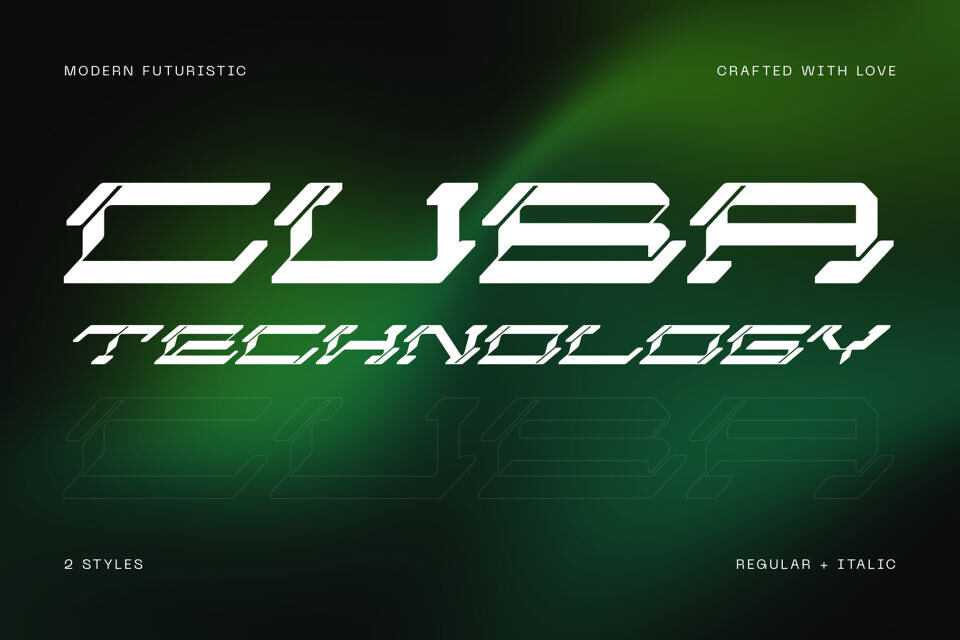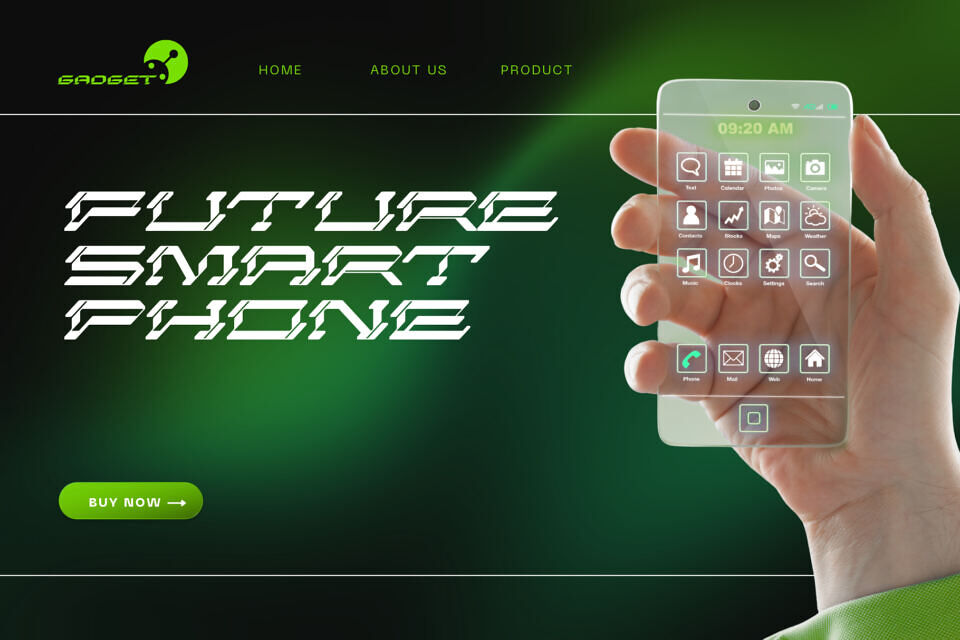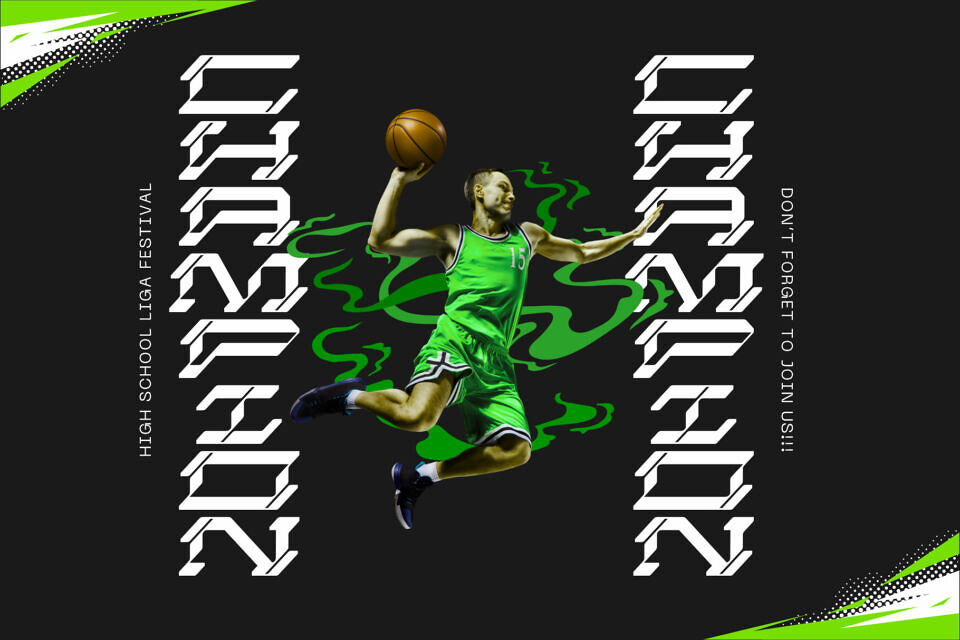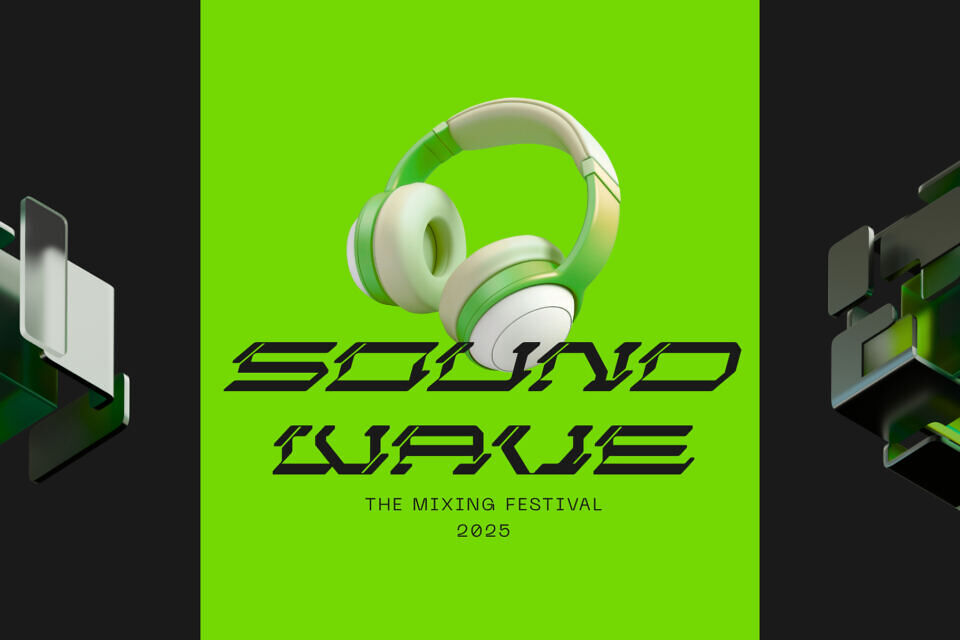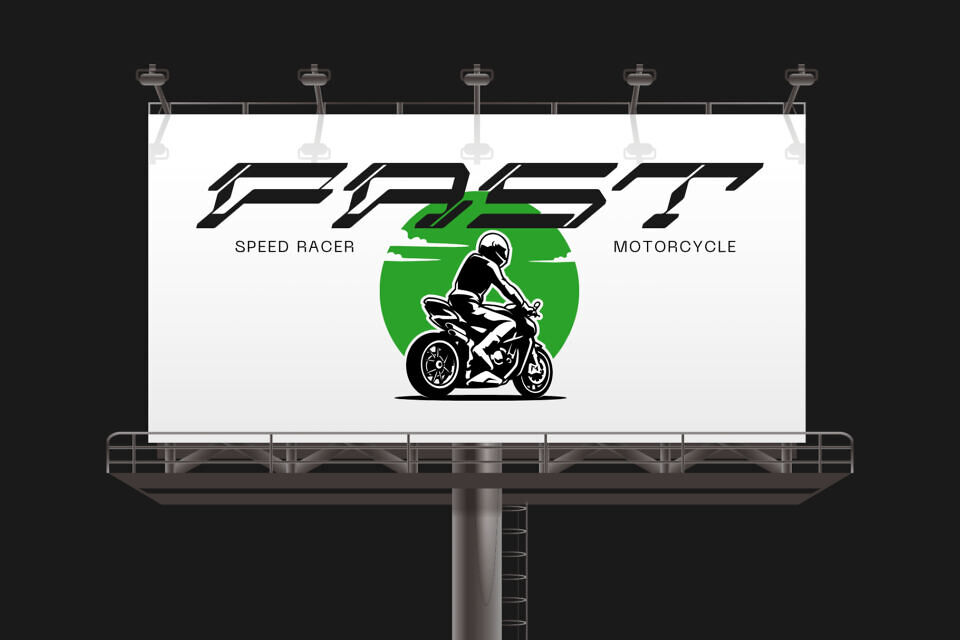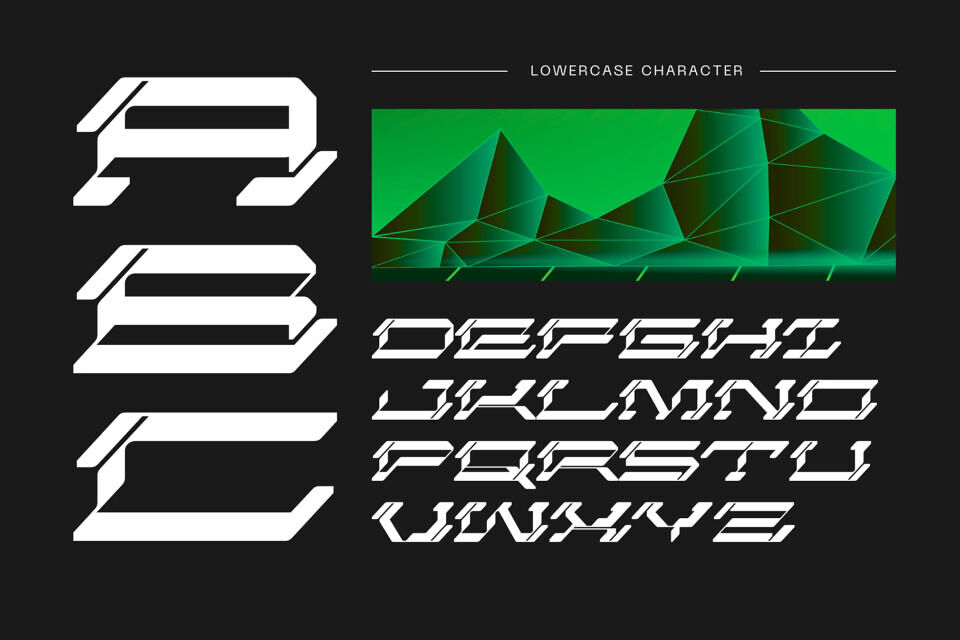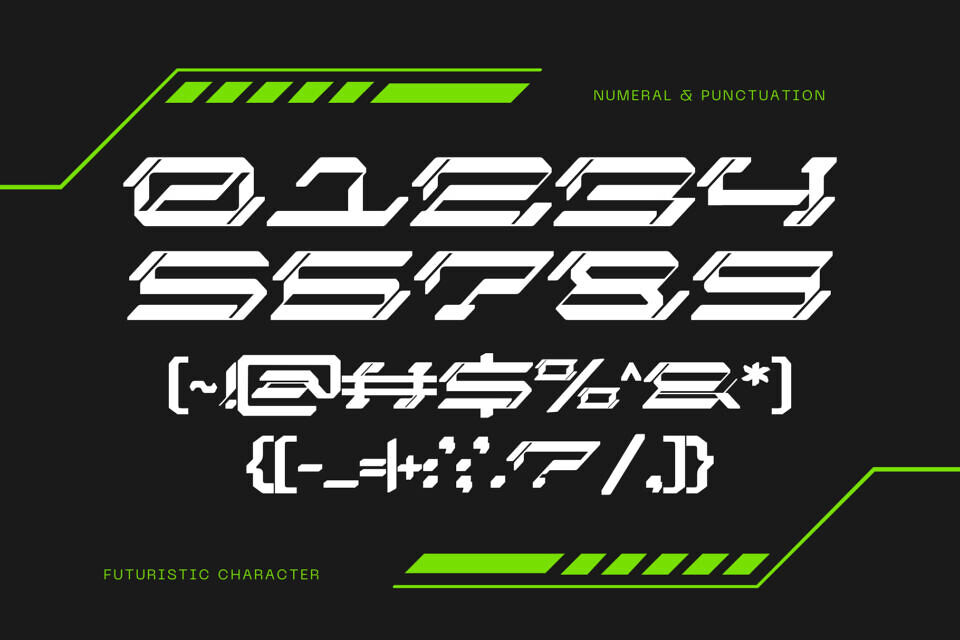
Cuba Technology Font
Cuba Technology Font is a modern futuristic typeface designed with bold, geometric lines and sharp, angular edges. Its sleek, italicized strokes give it a high-tech, motion-driven aesthetic, ideal for sci-fi themes, gaming interfaces, sports, and tech branding.
It delivers versatility while maintaining a strong digital presence. The font features stylized uppercase letters, numerals, and punctuation, all crafted with a robotic, forward-leaning slant that evokes speed and innovation. Perfect for titles, logos, and digital posters seeking a bold, cyberpunk-inspired edge.